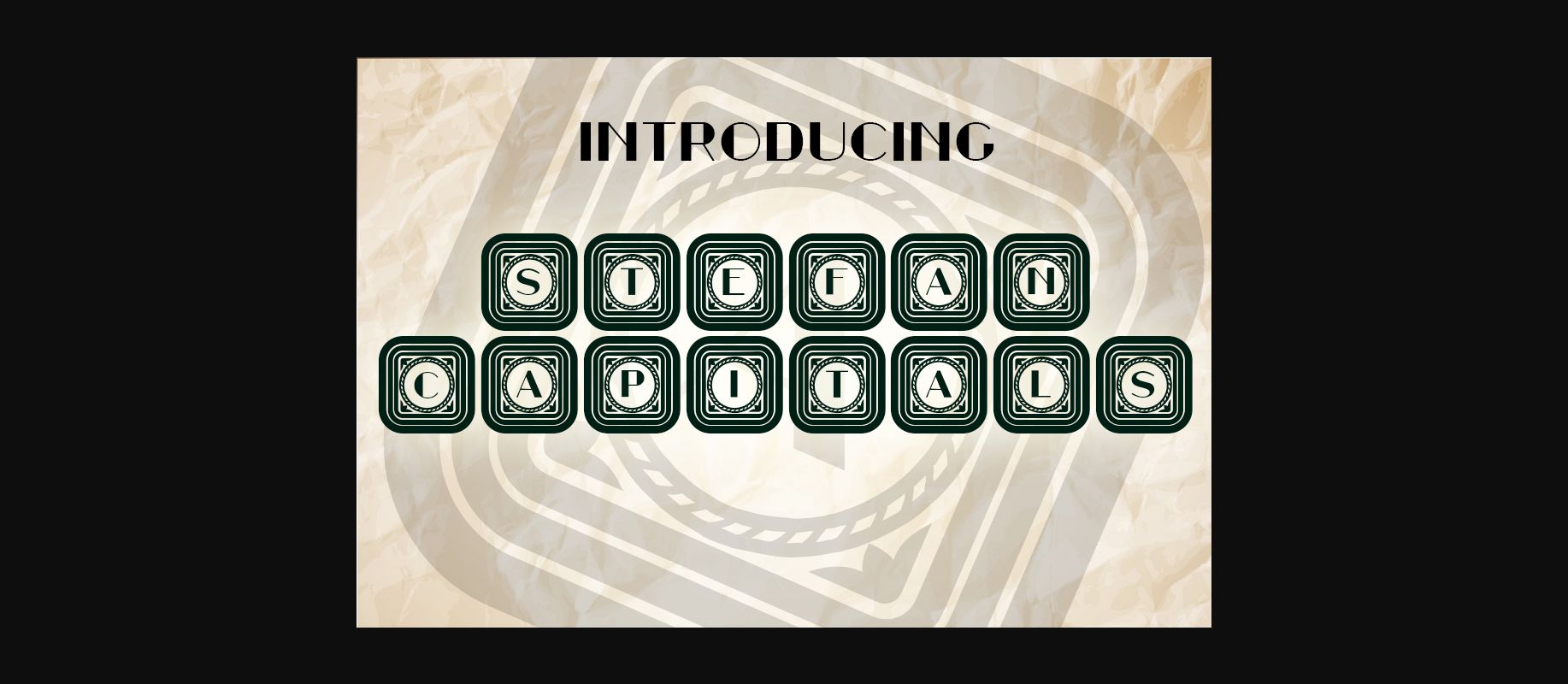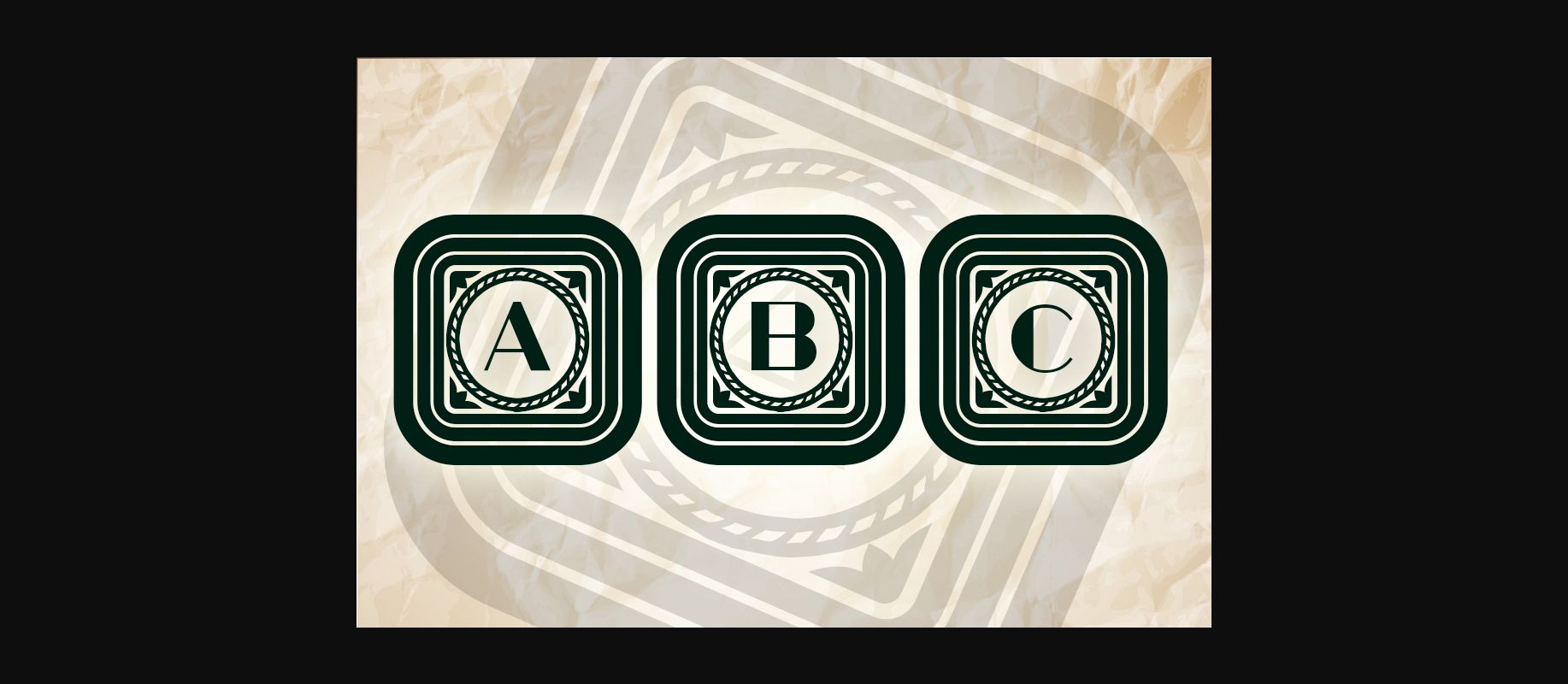
HomeDecorative FontsStefan Capitals Font Decorative Fonts Stefan Capitals Font FacebookXPinterestWhatsApp 1 of 2 About Stefan Capitals Font Stefan Capitals is a great decorative font. It will look great on posters, headlines, banners and much more. DOWNLOAD NOW People also explored Breathe Neue Misses Font Welcome to Paradise Font Hand Drawing Font Lets Dance Font Baby Sweet Font Sweet Experience Font Sellathy Font Moste Font 442 0 TagsStefan Capitals Font Previous articleInternational Capitals FontNext articleA Valentine Story Font LEAVE A REPLY Cancel reply Comment: Please enter your comment! Name:* Please enter your name here Email:* You have entered an incorrect email address! Please enter your email address here Website: Save my name, email, and website in this browser for the next time I comment. Personal Use Free Butter Belly Personal Use Free Read more about this font Daisy Script Personal Use Free Read more about this font My Shine Personal Use Free Read more about this font Colombia Personal Use Free Read more about this font BLOG Free vs Paid Fonts: Why Investing in Premium Fonts Is Worth It Free vs Paid Fonts: Why Premium Fonts Are Worth It in 2025 The debate of free vs paid fonts continues in the design world. While... Free Fonts Risk: Why Free Fonts Can Be Dangerous for Designers Best Fonts for YouTube Videos: Make Your Thumbnails Stand Out Transform Your Website: Elevate Your Typography with 7 Best Web Font Generators